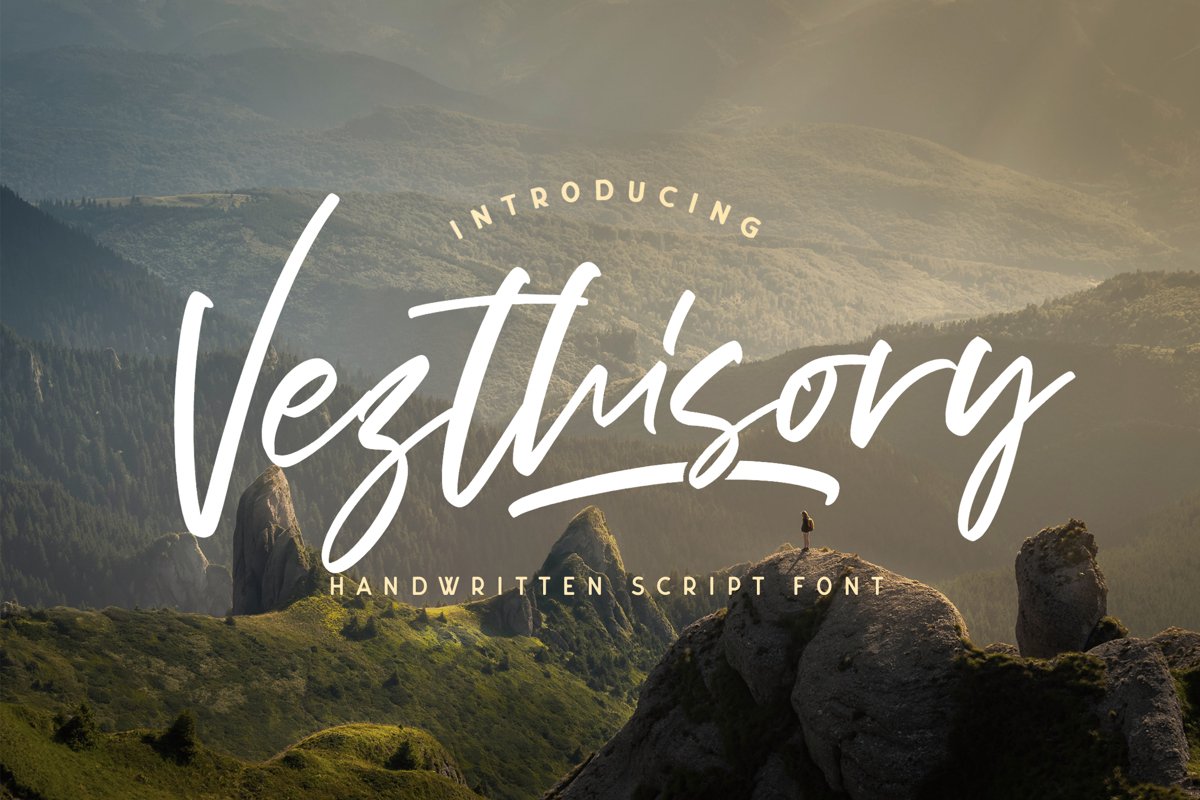
Vezthisory - Handwritten Font
Vezthisory
Introducing Vezthisory - Handwritten Font
Vezthisory is a Script Font with Handwritten Style. The Vezthisory font made with digital brush pen strokes that making this font look authentic. This font is perfect for fashion brand, wedding invitation, business card, logo brand, signature, and then calligraphy.
This Font contains Elegant, Creative, Luxury and has a Unique Concept.